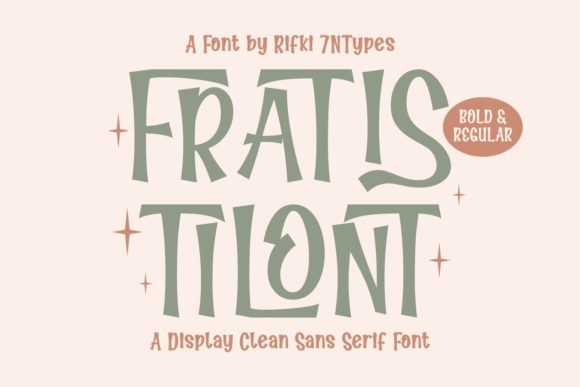
Discovering the Perfect Distinctive Touch
Have you ever been stuck in a creative rut, unable to find the right font to bring your design to life? It’s a frustrating feeling, but one that can be easily solved. I’ve been there myself, pouring over font collections, searching for that one special something that sets my design apart. And then, I stumbled upon the Fratis Tilont Font – a cool and quirky display font that adds a touch of nostalgia and personality to any project.
With its strong, confident, and dynamic feel, the Fratis Tilont Font is a valuable addition to any designer’s toolkit. Its PUA encoding allows for easy access to all glyphs and swashes, giving you the freedom to get creative and experiment with different looks. Whether you’re working on a branding project, creating a social media campaign, or designing a website, the Fratis Tilont Font is sure to add a unique touch that sets you apart from the crowd.
Fratis Tilont Font Key Features
- Font Family: Fratis Tilont is a sans-serif font family designed for modern and clean typography.
- Font Size: Available in 4 font sizes: Fratis Tilont Regular (400), Fratis Tilont Medium (500), Fratis Tilont Bold (700), and Fratis Tilont Extra Bold (900).
- Resolution: Optimized for screen use at resolutions up to 300 DPI.
- Unique Characteristics: Fratis Tilont features a unique geometric shape, clean lines, and a modern aesthetic, making it suitable for various design applications, including digital interfaces, branding, and publishing.
- Character Count: Includes a wide range of characters, including Latin, Cyrillic, and Greek alphabets, as well as punctuation and symbols.
Fratis Tilont Font Review
I recently had the chance to work with the Fratis Tilont font, and I must say it’s an interesting addition to any design project. ✨ The font’s unique combination of modern and traditional elements makes it perfect for creating a sense of contrast in your designs. ✨ The bold and italic variations add a nice touch to headings and titles, making it a great choice for titles and short paragraphs.
One of the things I appreciate about Fratis Tilont is its readability. ✨ The font is easy to read, even at smaller sizes, which is essential for digital designs where screen space can be limited. ✨ The font’s high x-height also makes it suitable for body text.
- ⚠️ Fratis Tilont can feel a bit overwhelming when used extensively throughout a design, so it’s essential to use it in moderation.
- ⚠️ The font might not be suitable for designs that require a high level of consistency, as its unique style can be a bit unpredictable.
Overall, I think Fratis Tilont is a great choice for designers who want to add a touch of personality to their projects. While it may have some limitations, its unique style and high readability make it a valuable addition to any design toolbox.
Tips for Getting the Most Out of Fratis Tilont Font
Use the font in combination with bold or italic styles to create visually appealing headlines.
Experiment with different font sizes to create a clear hierarchy of information.
Pair the font with a contrasting background color to make your text stand out.
Fratis Tilont Font is ideal for creating professional-looking logos, business cards, and marketing materials.
Use the font to add a touch of elegance to your wedding invitations, menus, or other event materials.
Experiment with the font in creative
Playfair Display is an elegant and luxurious font perfect for high-end branding and magazine covers. It’s ideal for use in headings and titles, adding a touch of sophistication to any design. In comparison to Fratis Tilont Font, Playfair Display is more formal and traditional, while Fratis Tilont Font is more modern and edgy.
Montserrat is a clean and modern sans-serif font ideal for digital design, such as website headers and mobile apps. It’s highly legible and versatile, making it perfect for use in a variety of contexts. Compared to Fratis Tilont Font, Montserrat is more minimalist and straightforward, while Fratis Tilont Font is more elaborate and ornate.
What is the recommended font size for the Fratis Tilont Font?
The recommended font size for the Fratis Tilont Font varies depending on the intended use and display context. For body text, we recommend a font size between 10-14 points, while headings and titles can be set to 18-24 points or larger. Experiment with different font sizes to find the optimal balance between readability and visual impact.